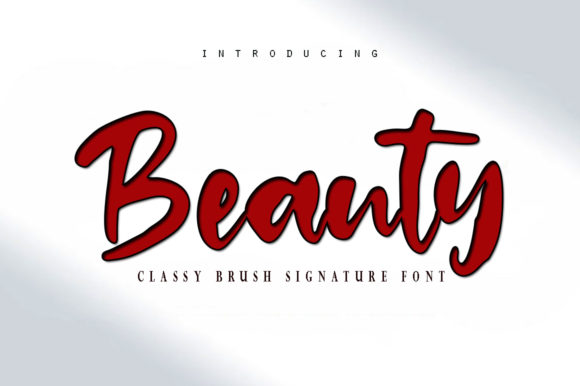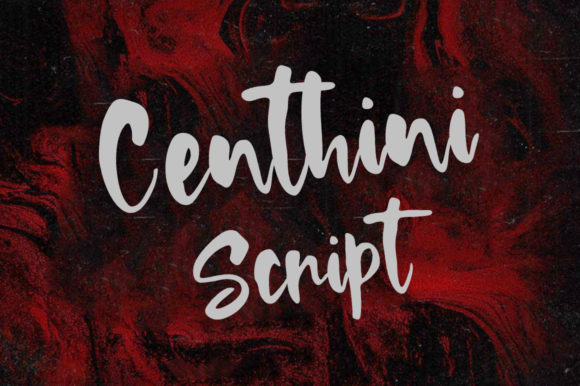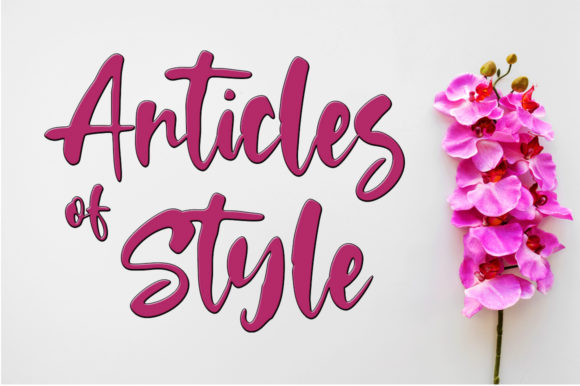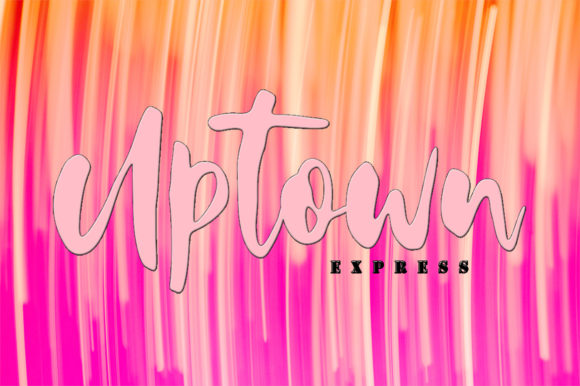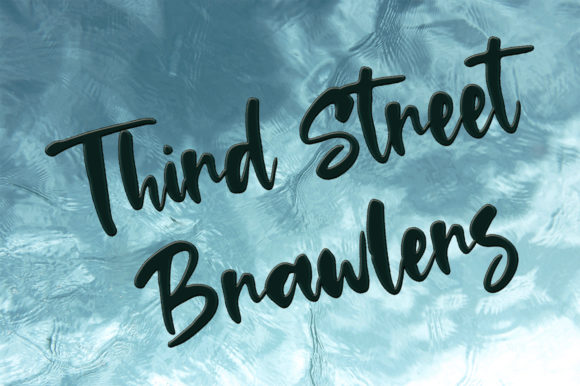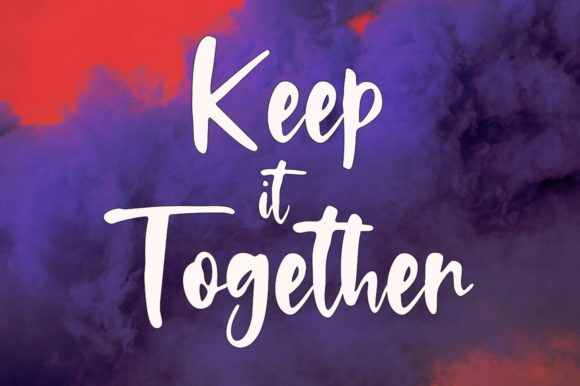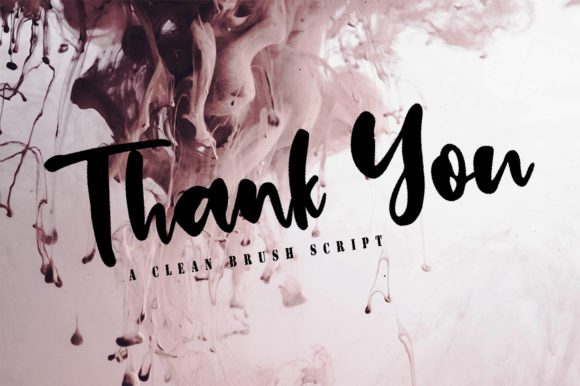
Beauty in Red Font
About Beauty in Red Font
Beauty combines two perfectly charming pen marker scripts into one truly original font duo. Combine them, and create stunning results!